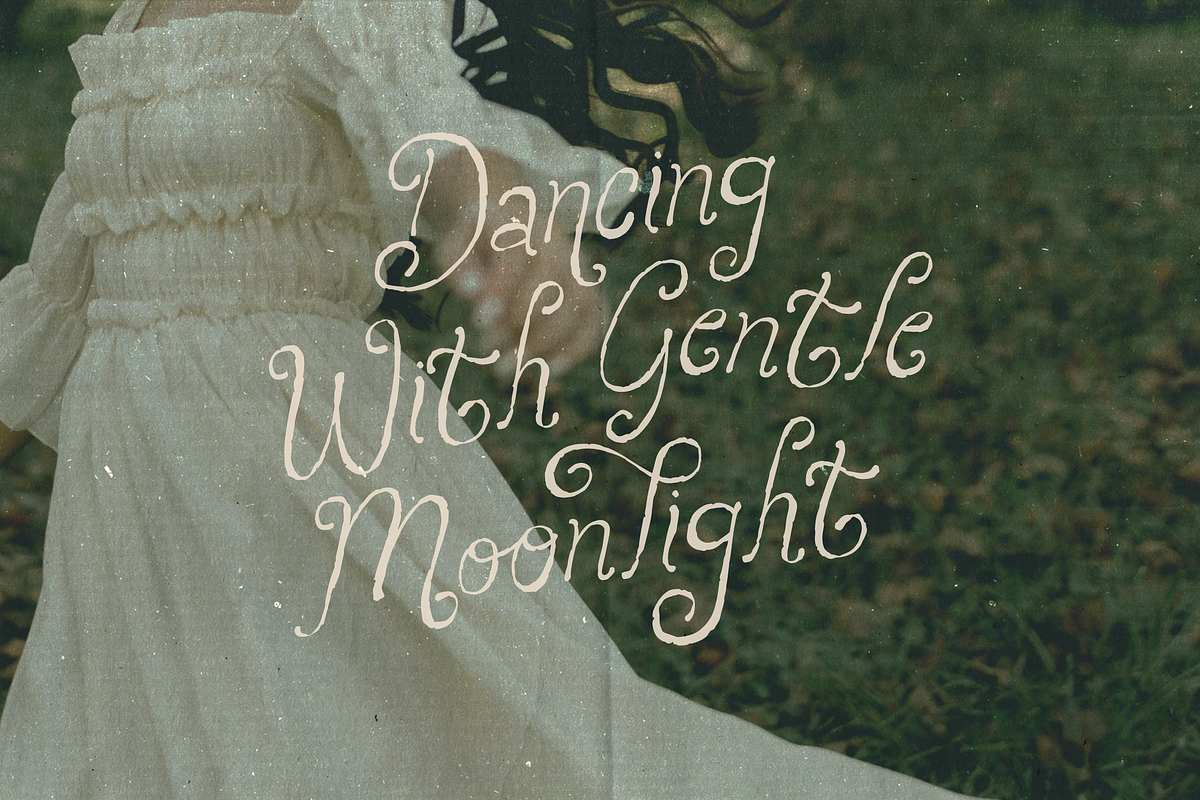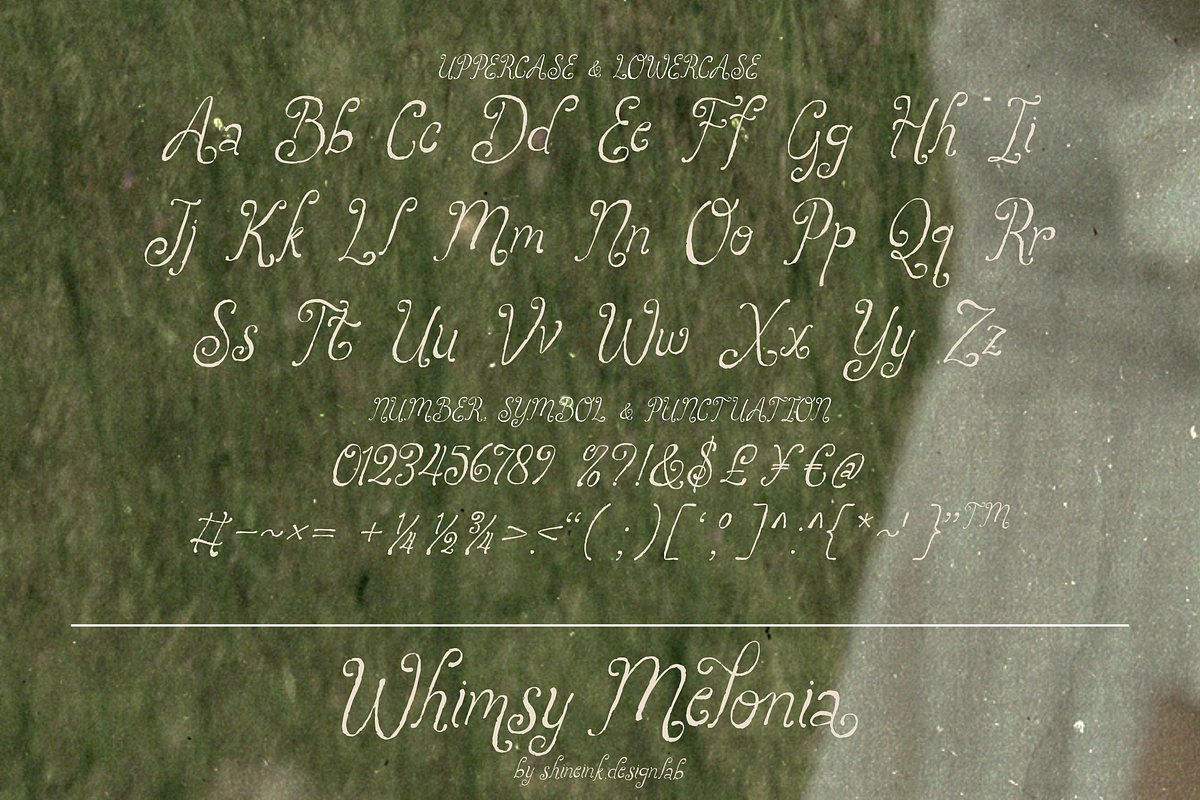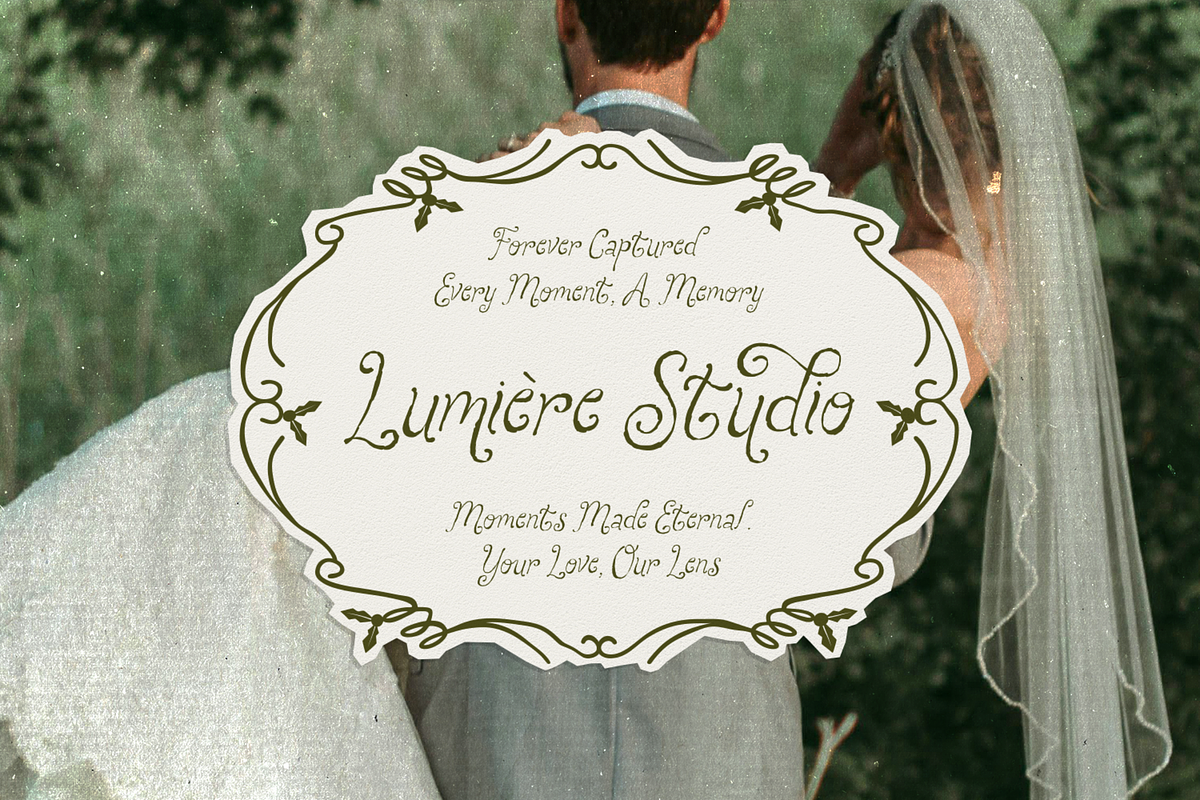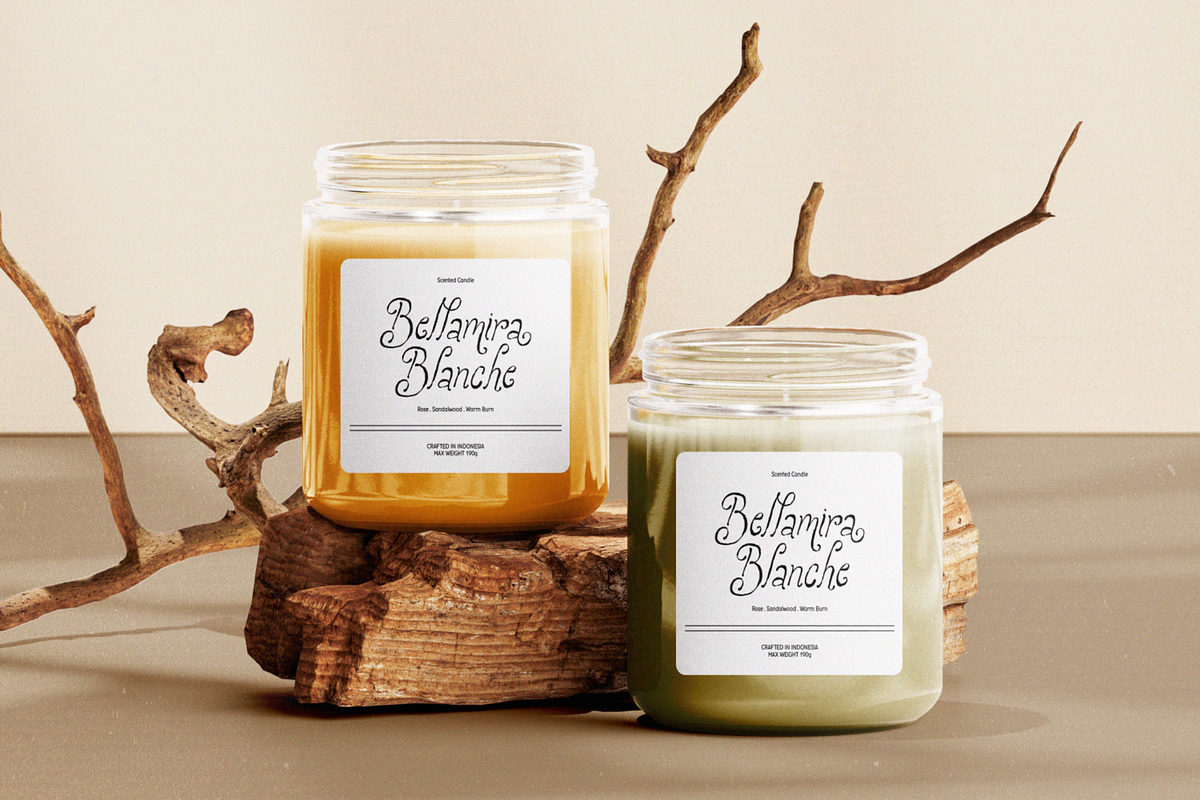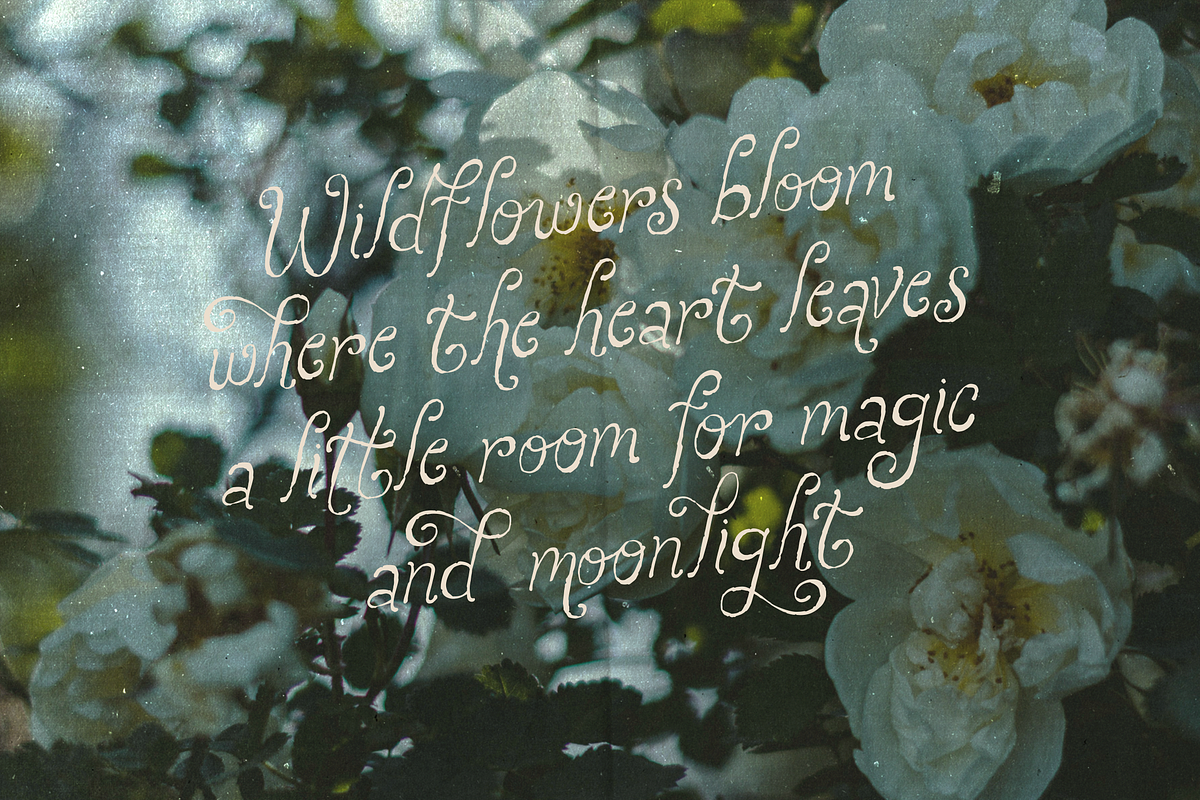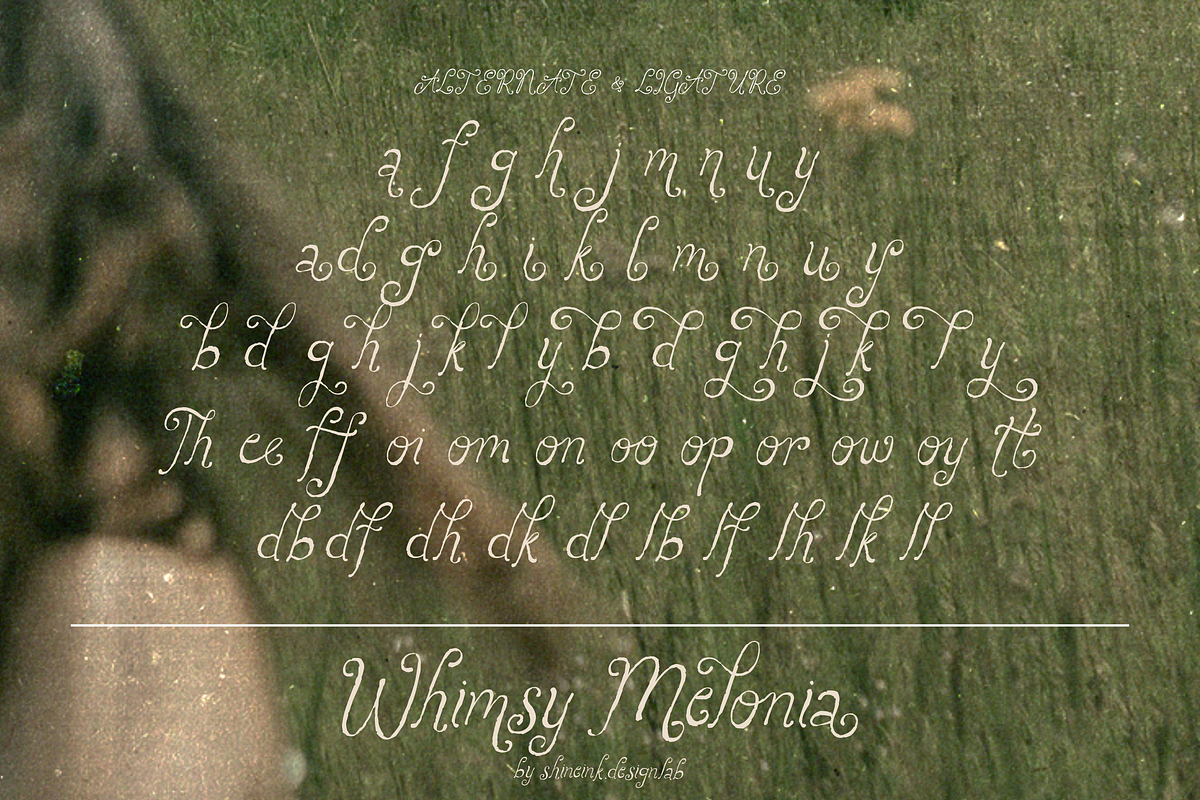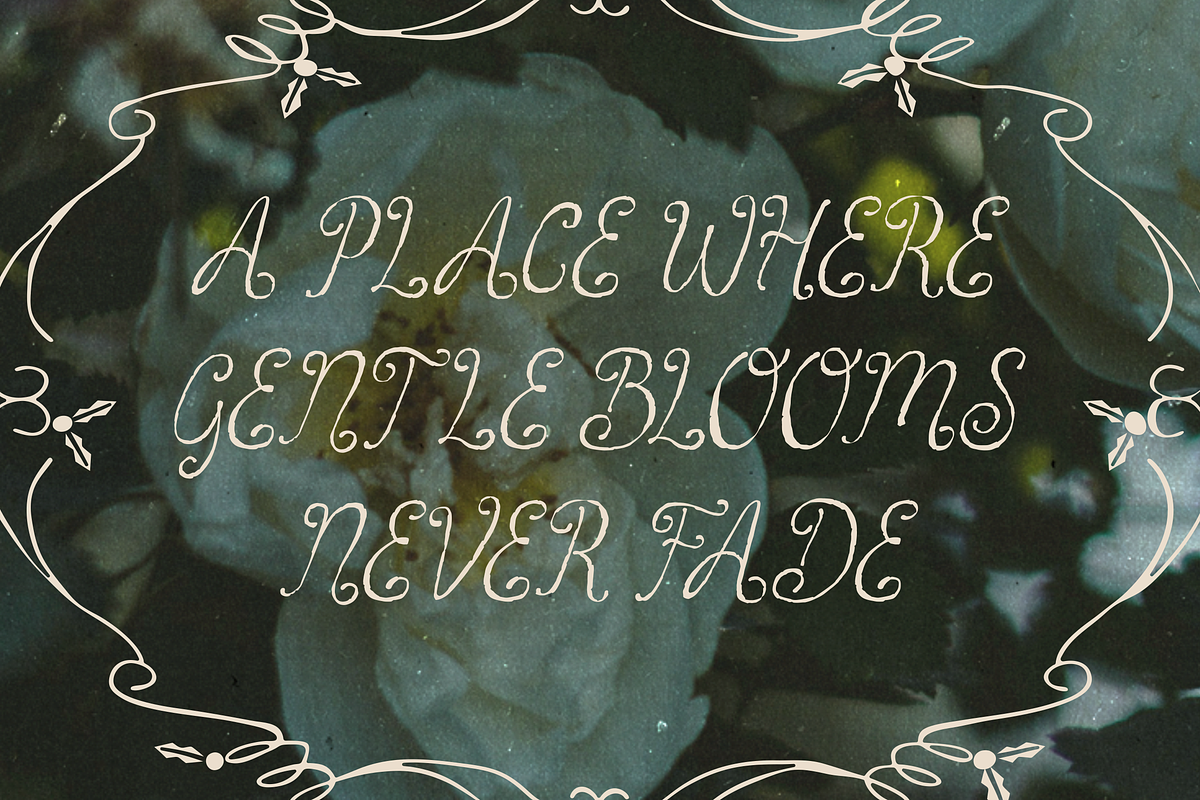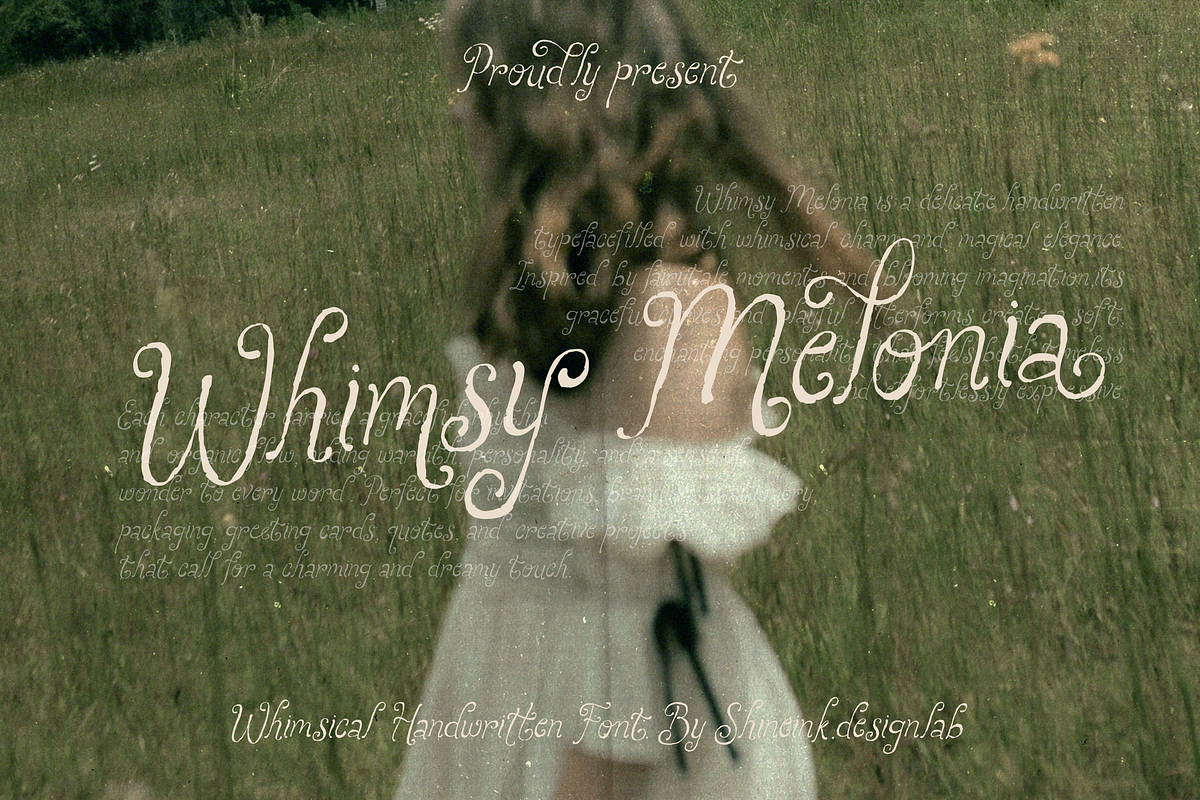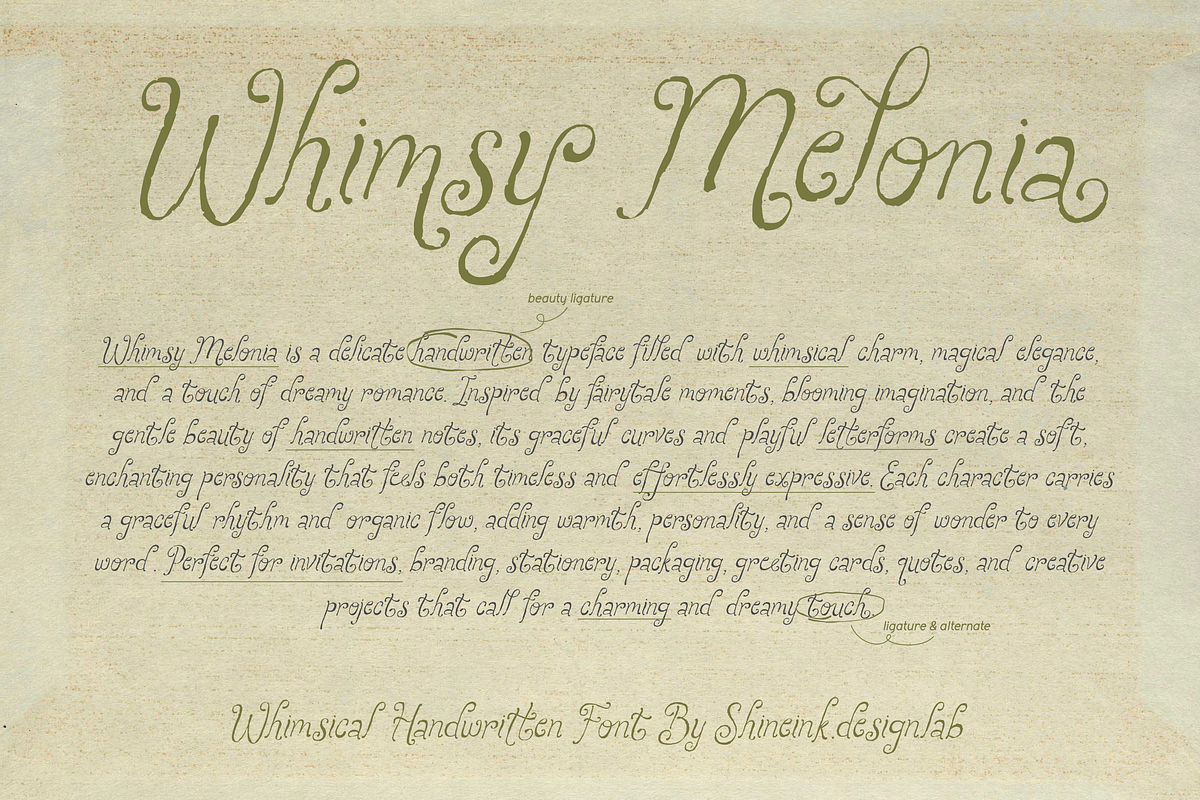
Whimsy Melonia – Whimsical Font
Whimsy Melonia is a delicate handwritten typeface that captures the beauty of dreamy moments and magical storytelling. Every letter flows with graceful curves, playful swashes, and an organic handmade feel, creating typography that feels both elegant and full of personality.
Designed for creatives who love romantic, fairy-inspired aesthetics, this font brings warmth and charm to branding, wedding stationery, boutique packaging, greeting cards, social media, book covers, and heartfelt quotes. Its expressive strokes make every word feel naturally beautiful and effortlessly enchanting.
Let your designs bloom with a soft, whimsical touch through Whimsy Melonia.